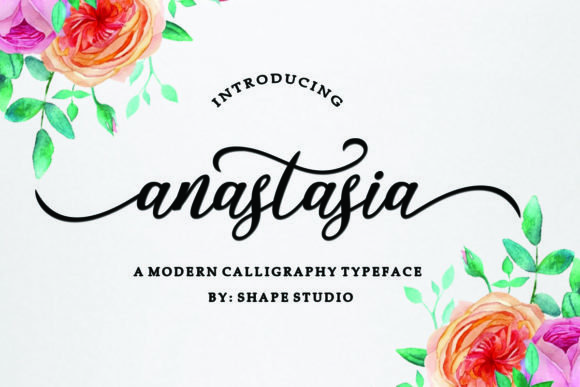
Unleash Your Creativity with the Timeless Anastasia Script Font
Have you ever sat down with a pen and paper, feeling the urge to create something beautiful and unique? The scratch of the pen on paper, the flow of ideas, and the satisfaction of bringing a design to life – it’s a moment that sparks creativity in us all. For designers, this feeling is a constant companion, and the right tools can make all the difference.
That’s where the Anastasia Script Font comes in – a lovely and timeless handwritten font that brings a touch of elegance to any design. Perfect for creating eye-catching logos, branding, and quotes, this font is a valuable asset for any designer looking to add a personal touch to their work. With its unique and beautiful touch, the Anastasia Script Font is sure to make your design come alive!
Anastasia Script Font Key Features
- Size: The font family includes a range of weights from Light to Extra Bold, providing flexibility for various design applications.
- Resolution: Anastasia Script Font is optimized for high-resolution displays, making it suitable for use in digital and print media.
- Unique Characteristics: This script font features elegant, flowing connections between letters, creating a sophisticated and luxurious feel ideal for branding, invitations, and luxury packaging.
- Language Support: Anastasia Script Font includes support for multiple languages, including English, Spanish, French, German, Italian, and many others.
- Font Size Range: Suitable for headings and titles in sizes ranging from 12pt to 72pt, making it a versatile choice for various design projects.
Anastasia Script Font Review
Overall, I’m really impressed with Anastasia Script Font. Here are the things that stand out to me:
- ✨ The font has a beautiful, elegant script style that’s perfect for invitations, wedding stationery, and other special occasions.
- ✨ The font is highly customizable, with a range of options for color, size, and spacing that make it easy to tailor to your specific needs.
- ✨ The font is also highly legible, even at smaller sizes, which is a must for any font that’s going to be used in print or digital applications.
However, there are a few limitations that I’d like to mention:
- ⚠️ The font may not be suitable for large blocks of text, as it can start to look cluttered and difficult to read.
- ⚠️ The font also doesn’t have a wide range of weights or styles, which can limit its versatility.
Overall, I’d highly recommend Anastasia Script Font for anyone looking for a beautiful, elegant script font for special occasions or branding. Just be aware of its limitations and use it in moderation.
Practical Application Guide for Anastasia Script Font
Tips for Getting the Most Out of Anastasia Script Font
Use Anastasia Script Font for creating elegant and stylish designs.
Pair it with a bold font for contrast and visual appeal.
Experiment with different colors and text sizes to enhance the design.
Anastasia Script Font is ideal for:
Event banners and posters.
Personalized gifts and cards.
Branding and marketing materials.
Alternatives to Anastasia Script Font for Designers
Great Vibes is a beautiful, elegant script font perfect for creating a sense of sophistication and luxury. It’s ideal for use in wedding invitations, fashion branding, and high-end packaging.
Compared to Anastasia Script Font, Great Vibes has a more refined and classic feel. While Anastasia Script Font has a more playful and whimsical touch, Great Vibes exudes a sense of timelessness and elegance.
Carolyna Pro is a modern script font designed for a wide range of applications, from branding and advertising to editorial and packaging. It’s perfect for designers who want a stylish and versatile font that can adapt to different contexts.
Compared to Anastasia Script Font, Carolyna Pro has a more contemporary feel and a wider range of weights and styles. While Anastasia Script Font is more suited for romantic and vintage-inspired designs, Carolyna Pro is ideal for modern and edgy projects.